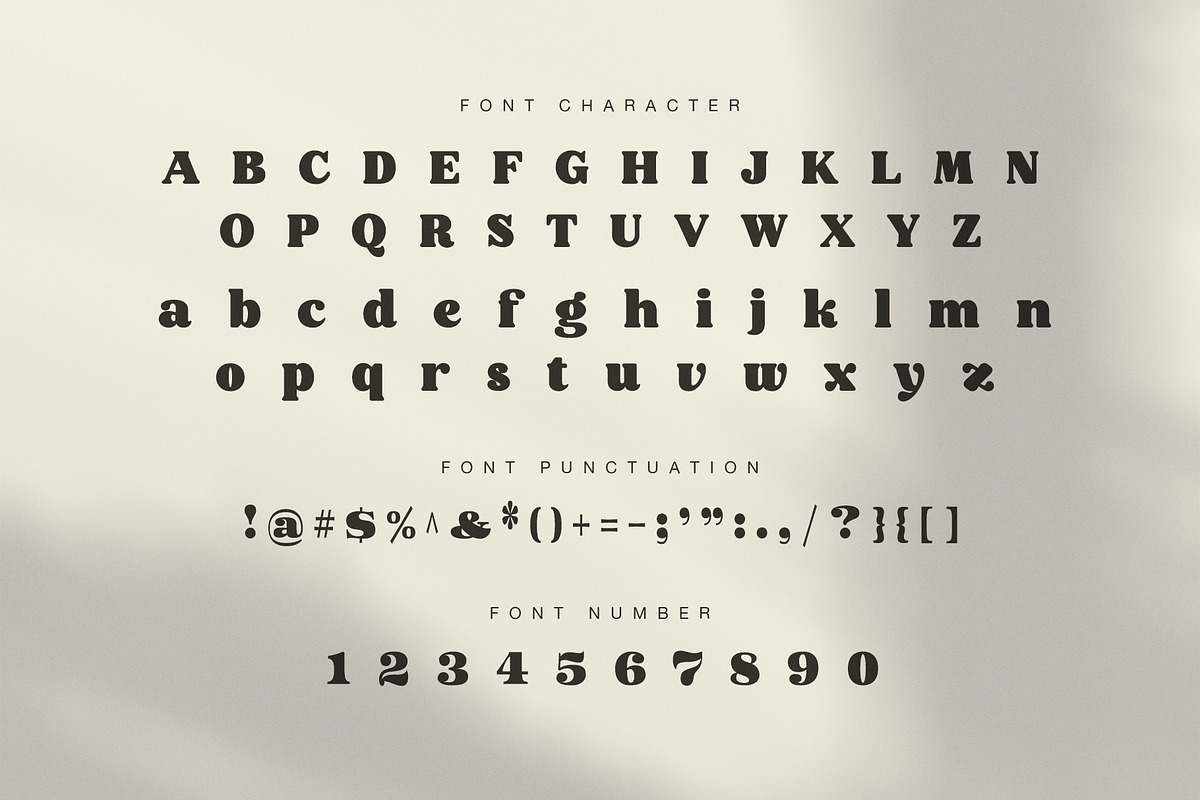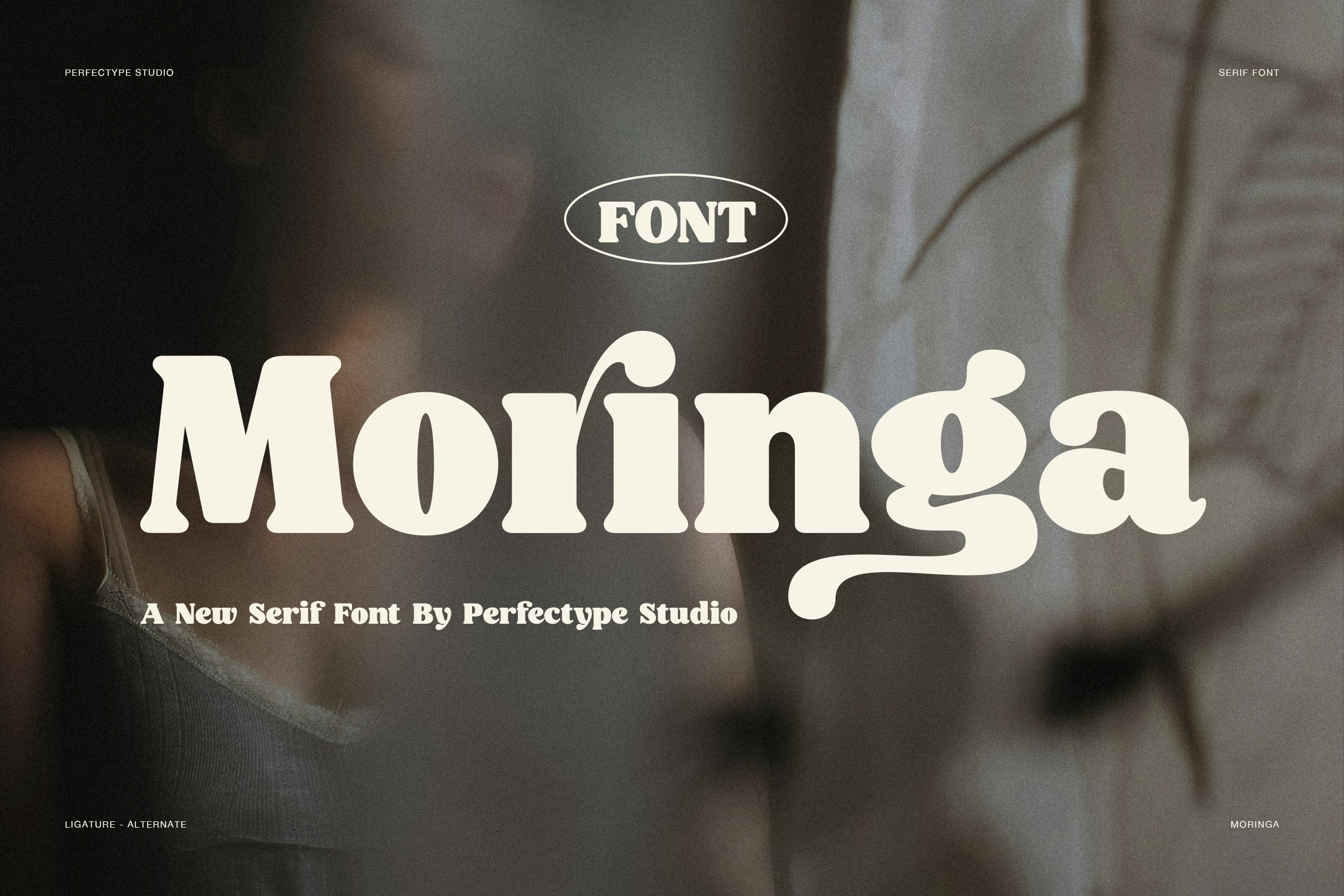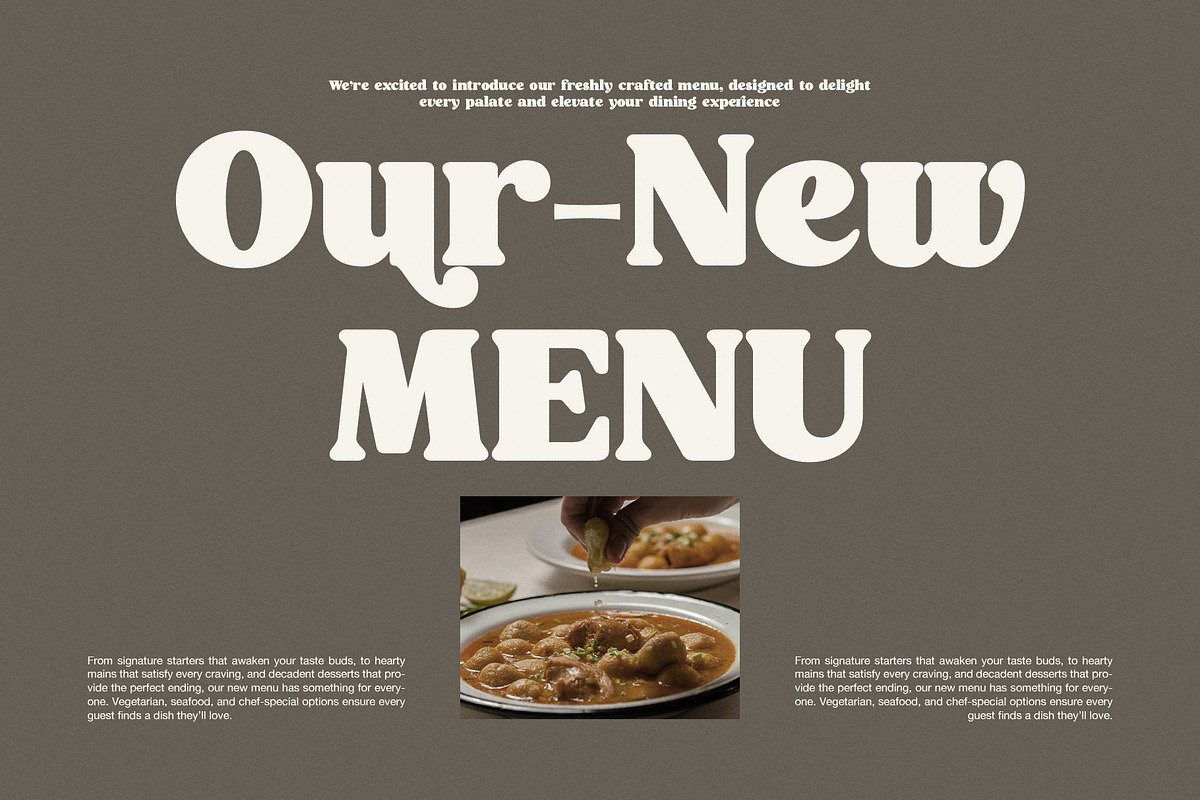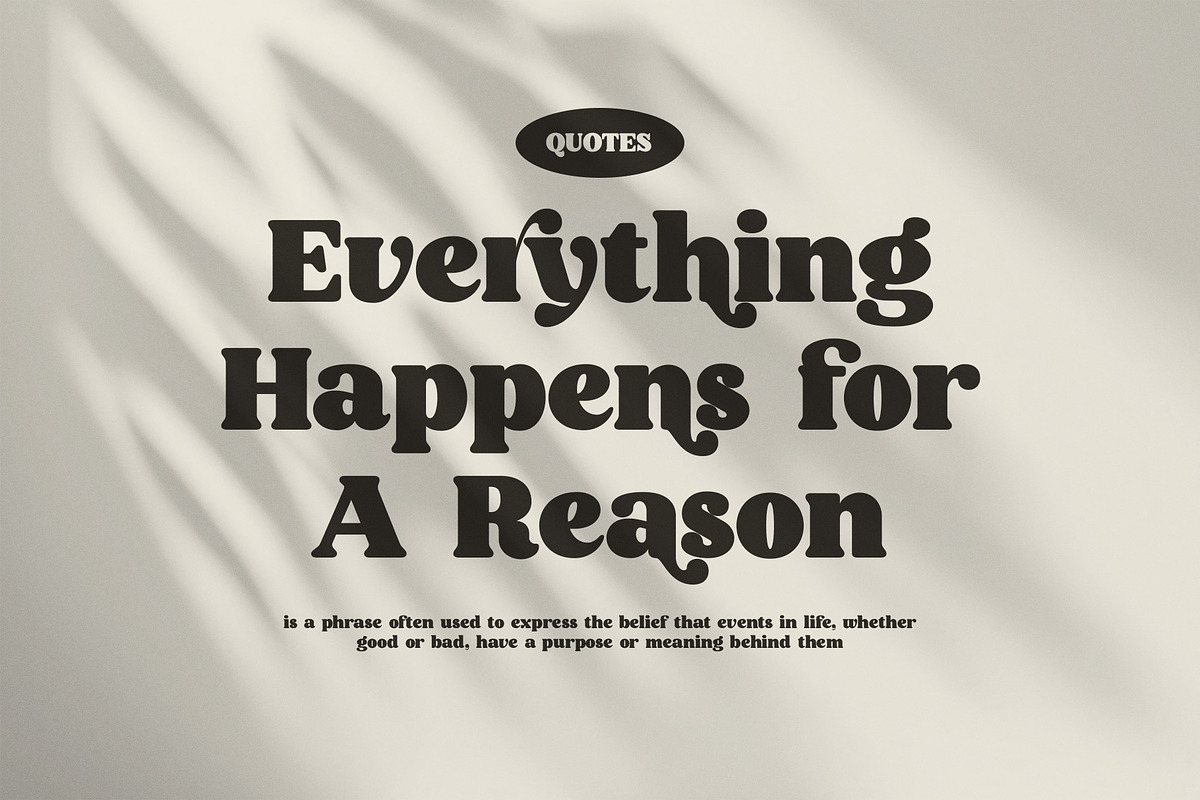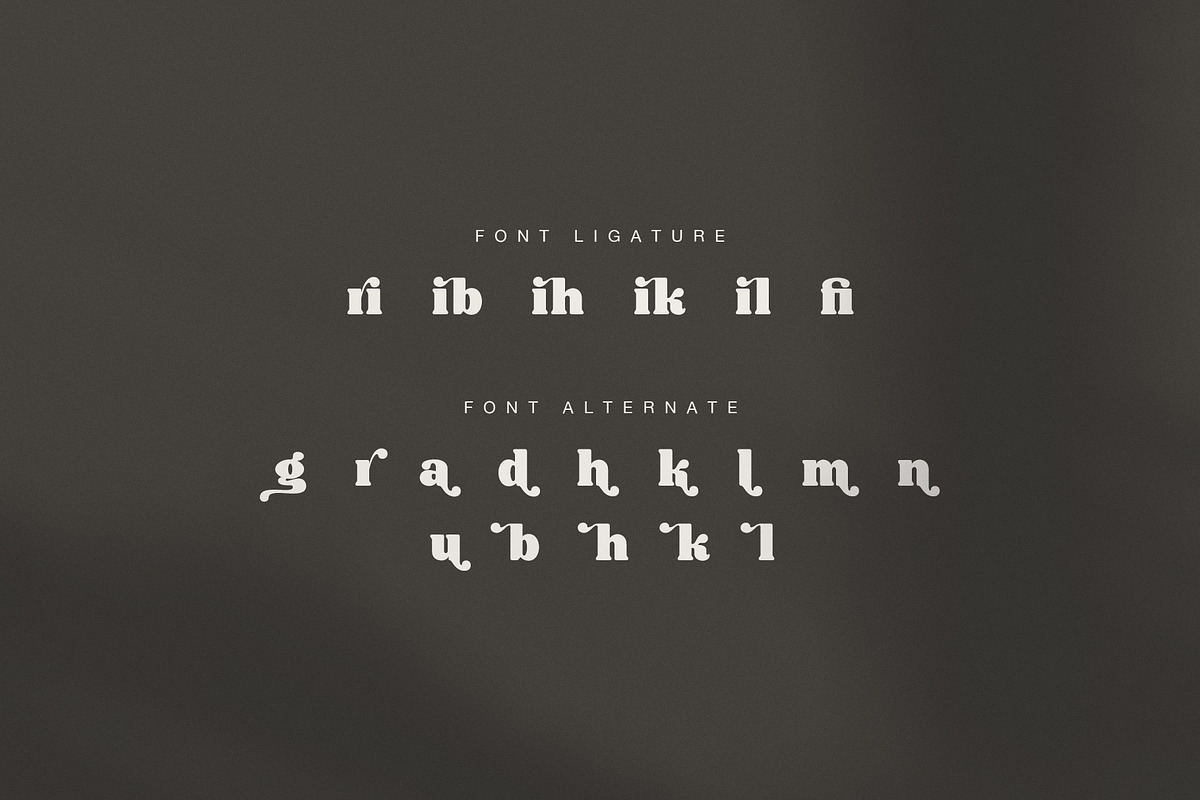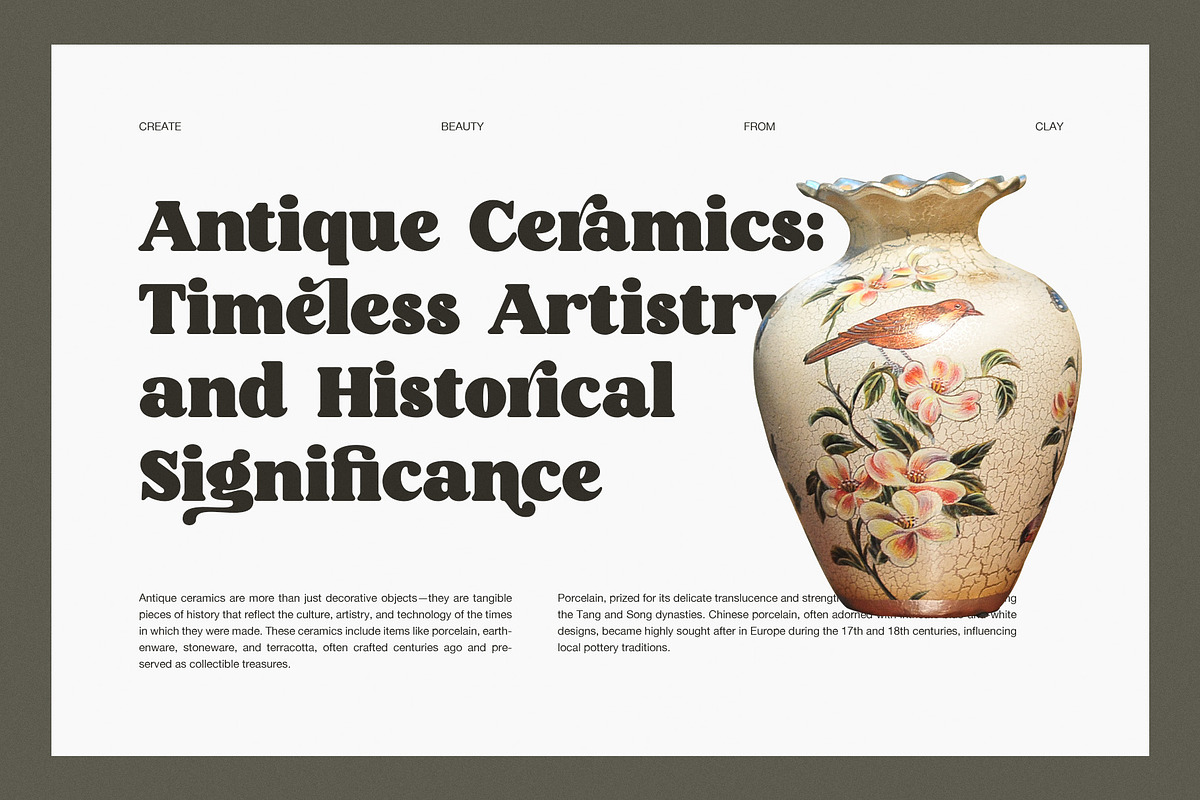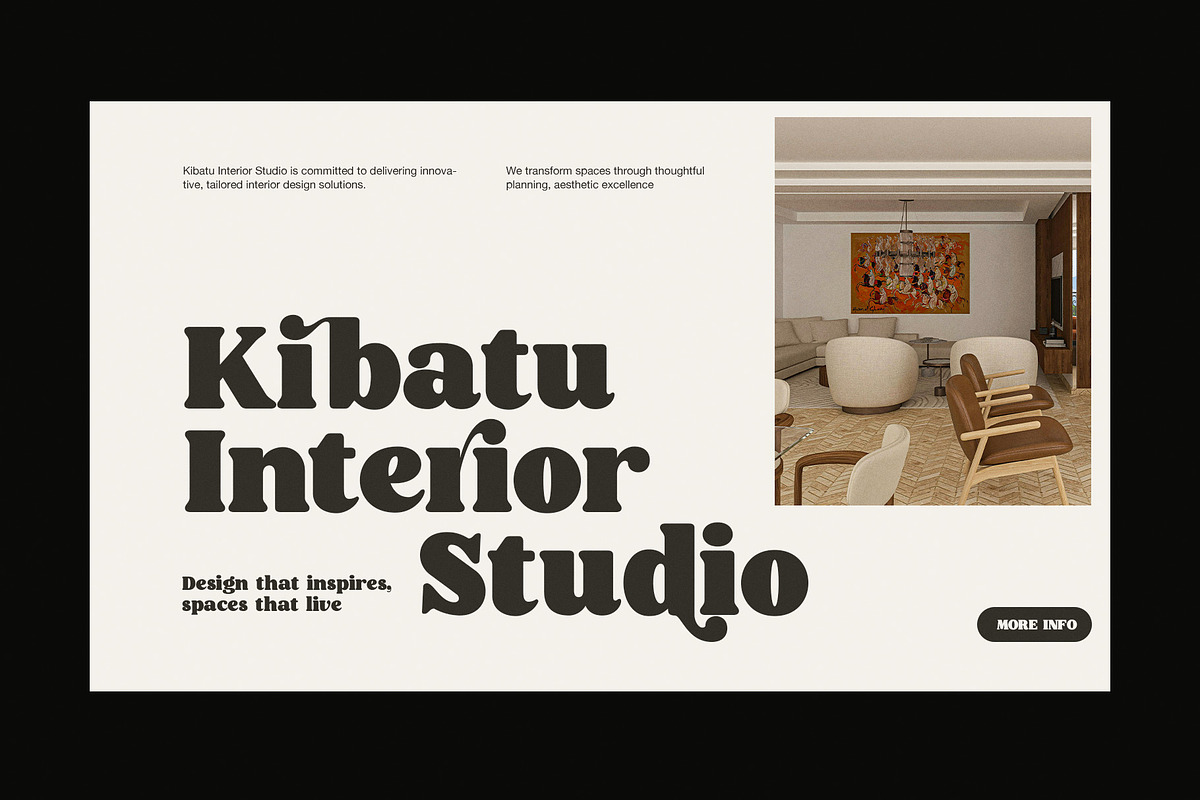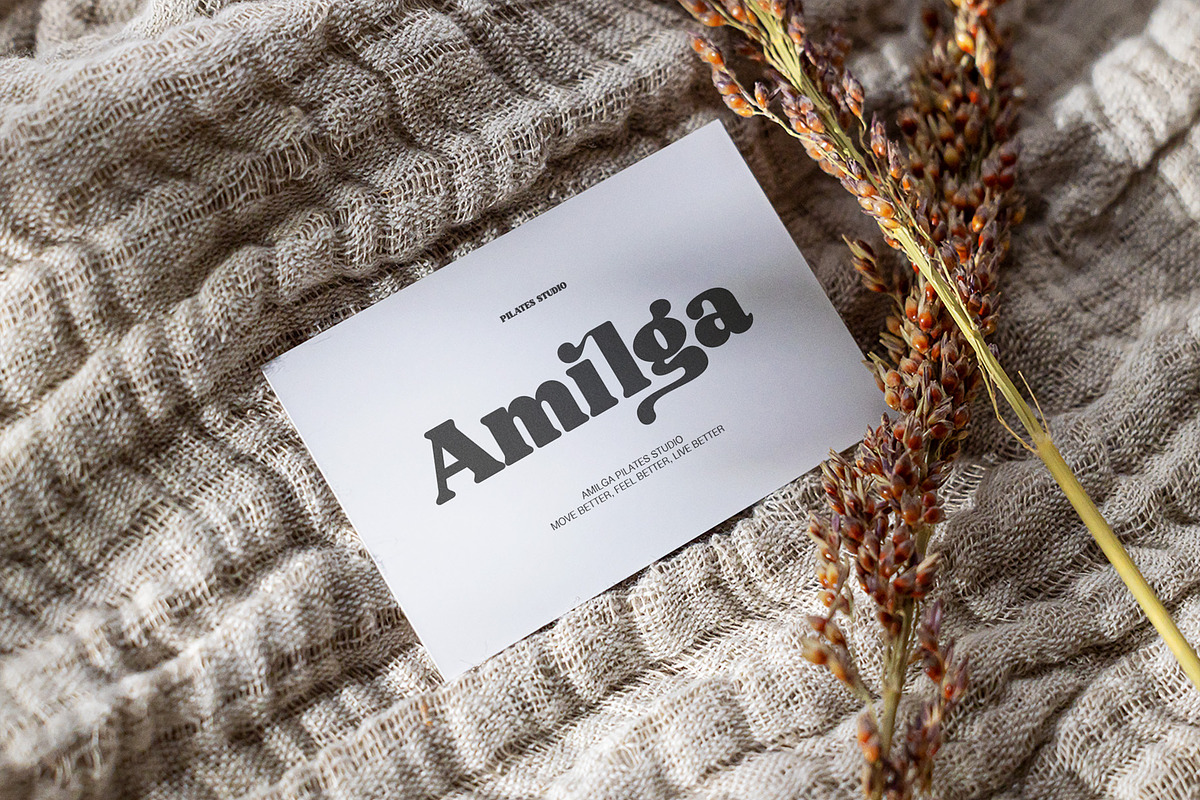
Moringa Bold Serif Font
Moringa Bold Serif Font is a strong display typeface with a soft retro soul. It blends bold serif structure with playful curves, so it feels warm, stylish, and full of character. At first glance, the font looks heavy and eye-catching. However, its rounded edges and flowing alternates give it a friendly and creative mood.
The shape of Moringa is bold, clear, and full of charm. In addition, the thick strokes help every word stand out with ease. The serif details feel classic, while the curved terminals add a fun and fresh twist. Because of that, this font works very well for designers who want a vintage look with a modern touch.
Moringa also includes ligatures and alternate characters. These details make text feel more custom and expressive. As a result, brand names, product titles, and short quotes look more alive. The ligatures add smooth flow, while the alternates bring a decorative finish. Therefore, Moringa is a great choice for projects that need a bold voice and a memorable style.
From the preview, this font fits many creative themes. It looks beautiful for branding, posters, quotes, menu design, interior branding, packaging, ceramics, café identity, studio logos, and product labels. Moreover, it works well for social media posts, book covers, vintage packaging, lifestyle branding, and headline design. Its bold shape helps designs feel confident, while its soft curves keep the look warm and inviting.
Main Features
- Bold serif style with a retro look
- Thick and highly visible letterforms
- Decorative alternate characters
- Smooth ligatures for custom text
- Great for logos, quotes, and headlines
- Perfect for branding, packaging, and posters
Why Designers Love It
Moringa gives every layout a louder and more cheerful voice. Even so, it still feels polished and easy to use. The bold structure makes text readable from far away, while the playful details add charm. For that reason, it is a strong option for both print and digital design.
If you need a serif font that feels bold, unique, and full of personality, Moringa Bold Serif Font is a lovely choice. It helps your work look more expressive, more stylish, and more memorable. So, whether you design for cafés, boutiques, studios, or lifestyle brands, this font can leave a lasting impression.